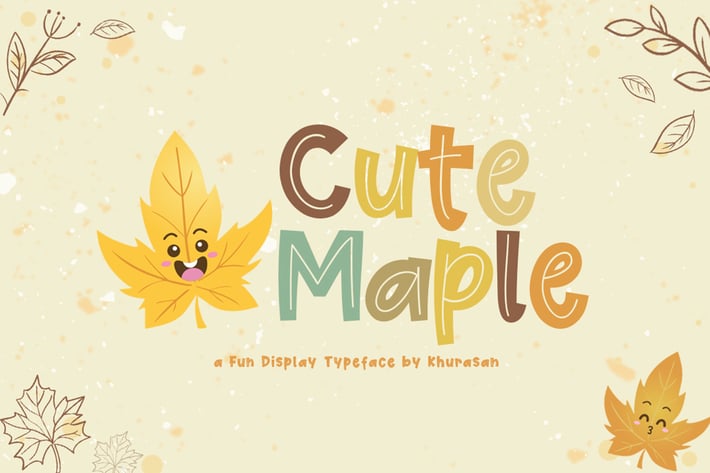
Cute Maple Font
Introducing, Cute Maple font a display typeface with cheerful theme for your fun project. Cute Maple font support multilanguage. Cute Maple font suitable for logo, branding, greeting card, poster and any design that you create.